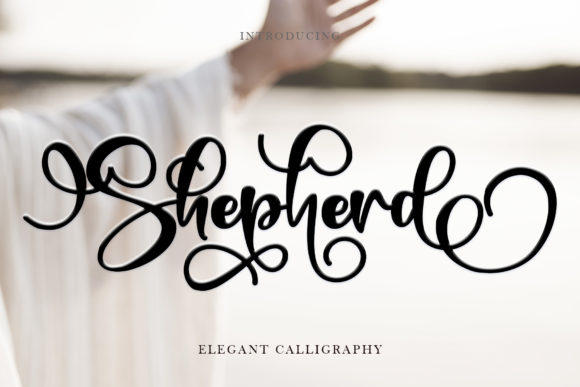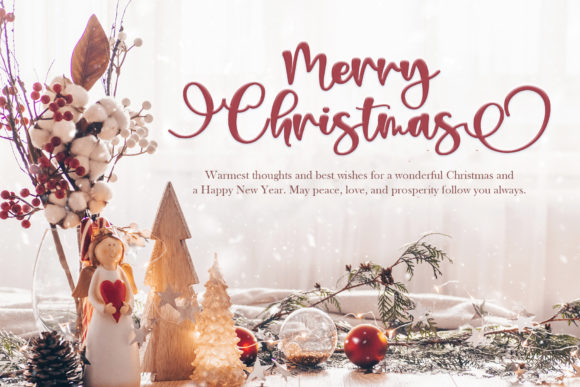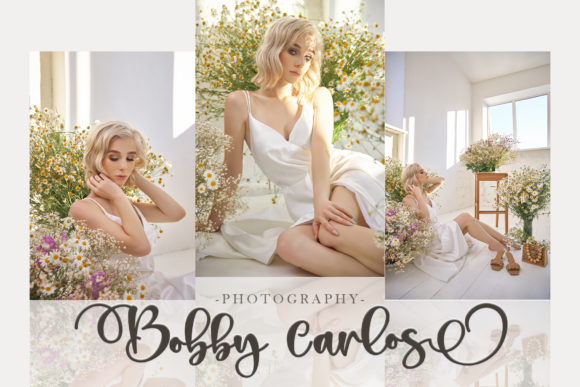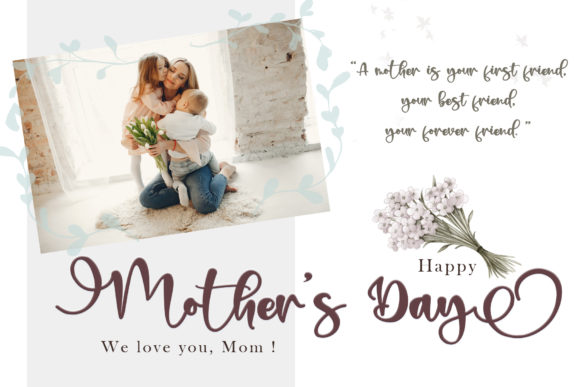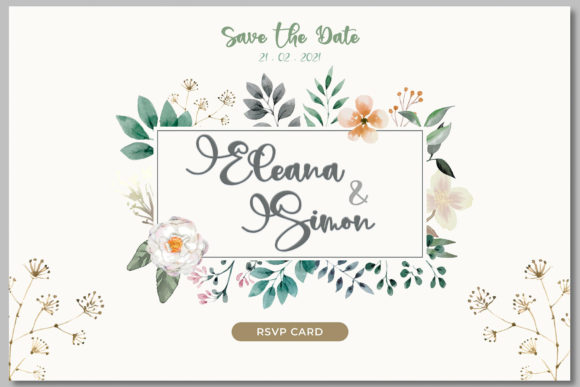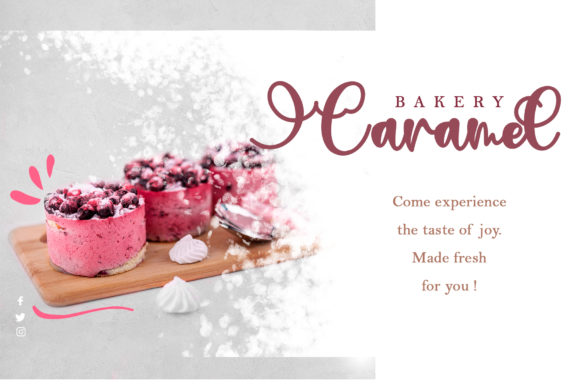
Shepherd Font
About Shepherd Font
Shepherd is a beautiful calligraphy font with an incredibly luxurious feel. It will add a romantic touch to any crafting project! Get inspired by its whimsical charm and create gorgeous designs!